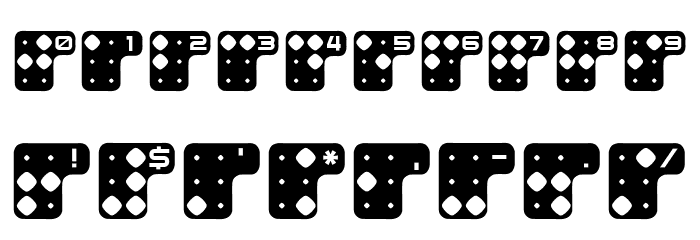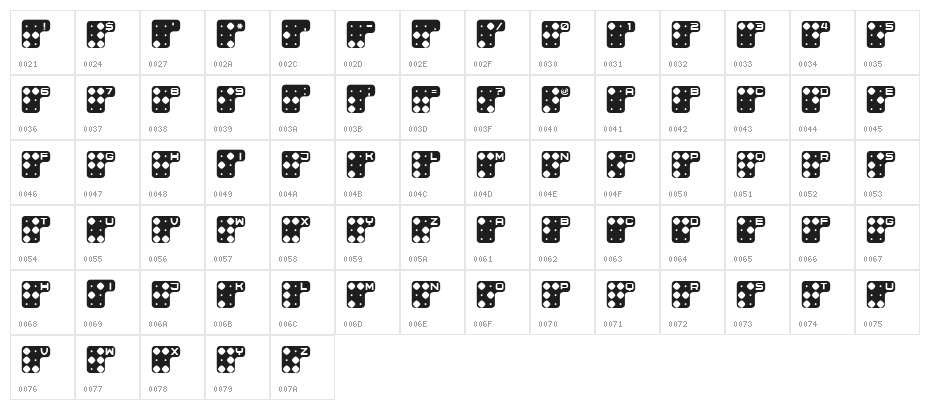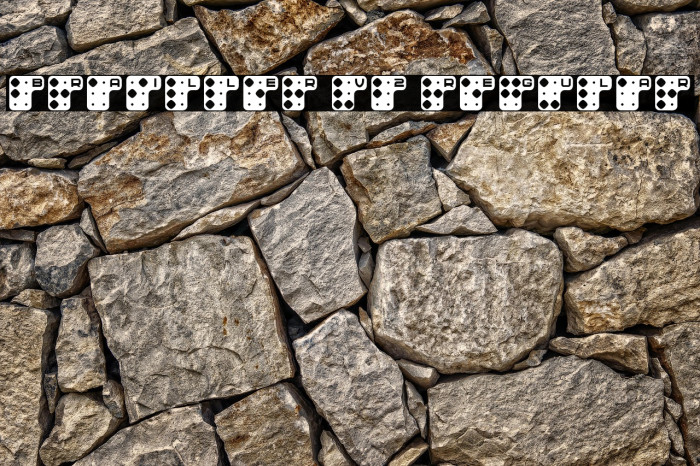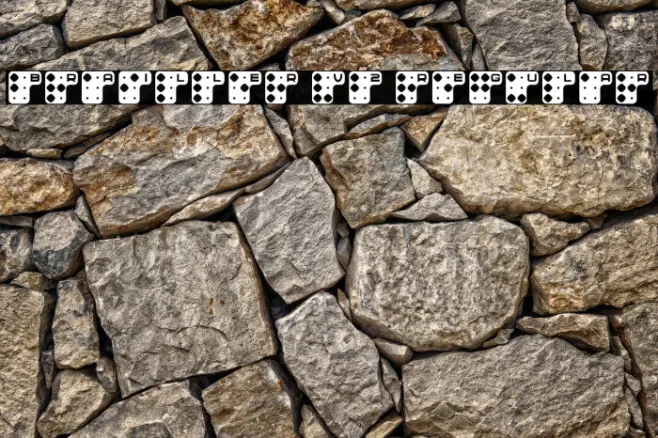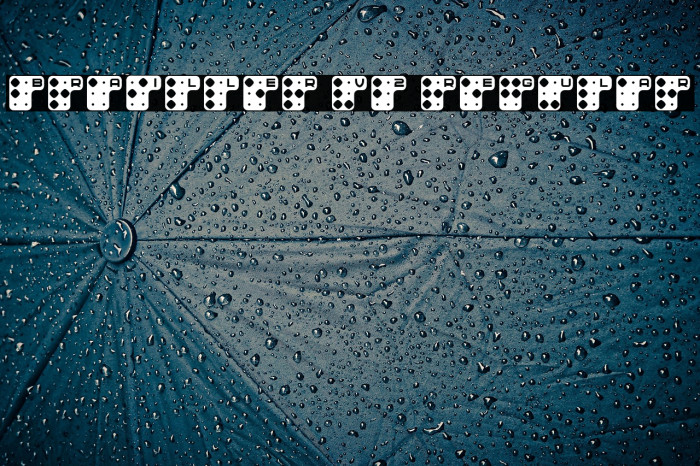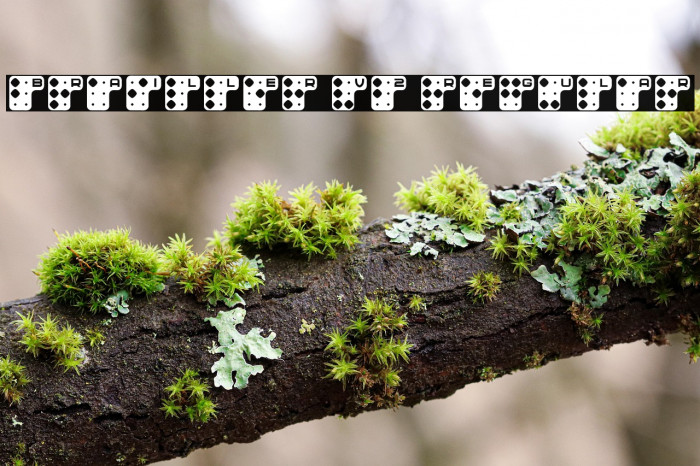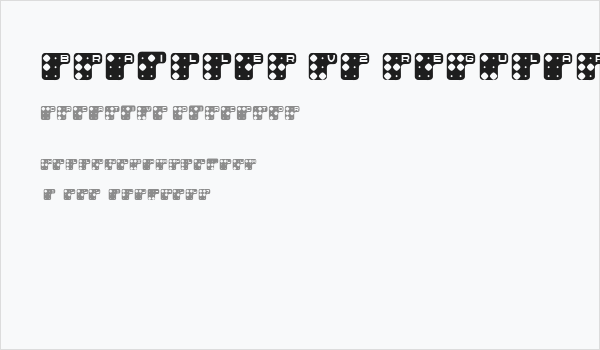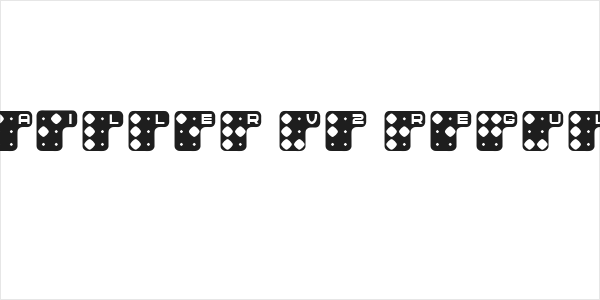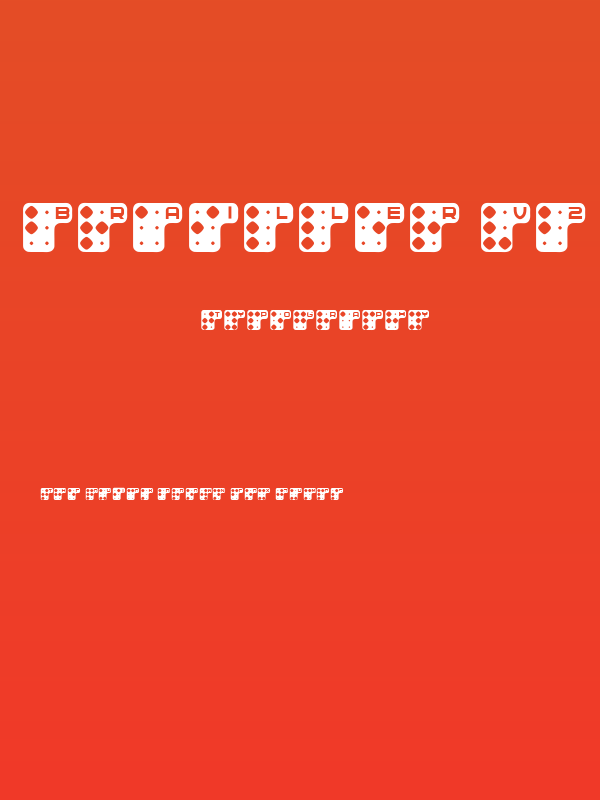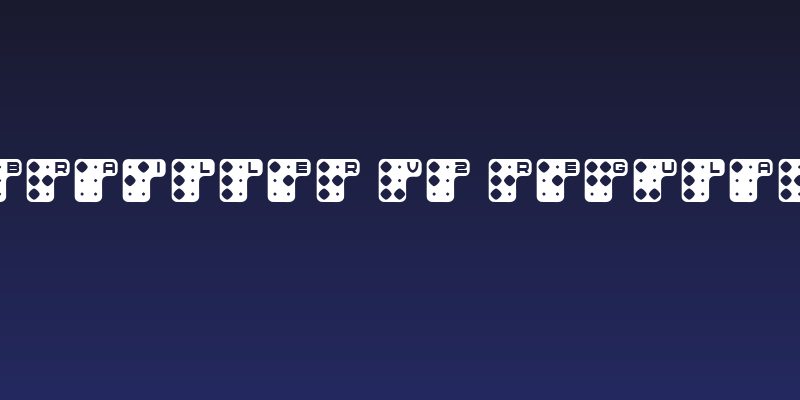
Brailler V2 Regular Font
Brailler V2 Regular Description
This font is a unique and creative representation of the Braille system, where each character is designed with a series of dots that mimic the tactile writing system used by visually impaired individuals. The characters are bold and distinct, with a modern twist on traditional Braille. Each letter and number is enclosed in a rectangular shape, providing a structured and uniform appearance. The use of negative space effectively highlights the dot patterns, making each character easily recognizable. This font is not only functional but also visually appealing, offering a fresh take on accessibility in design.
| Use Case | Logos, Educational materials, Accessibility designs |
| Proposed Projects | Ideal for educational materials, accessibility-focused designs, and creative projects that aim to raise awareness about Braille literacy. |